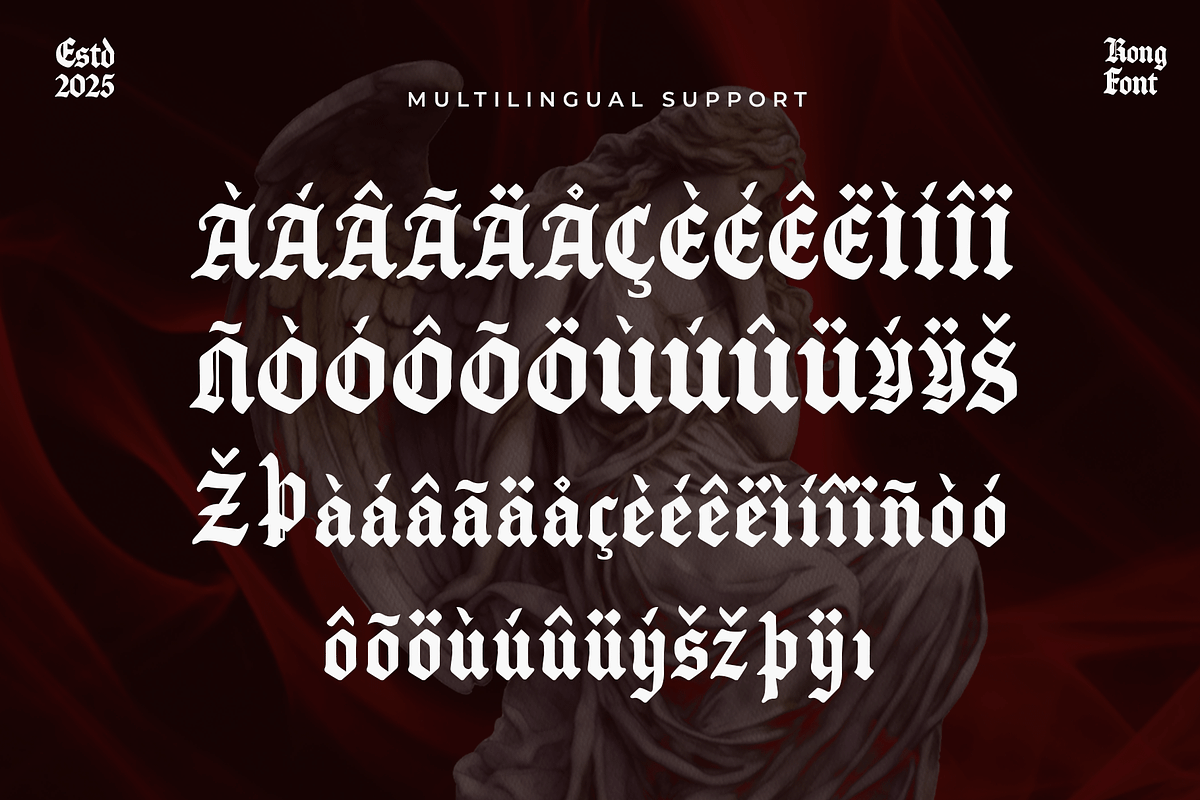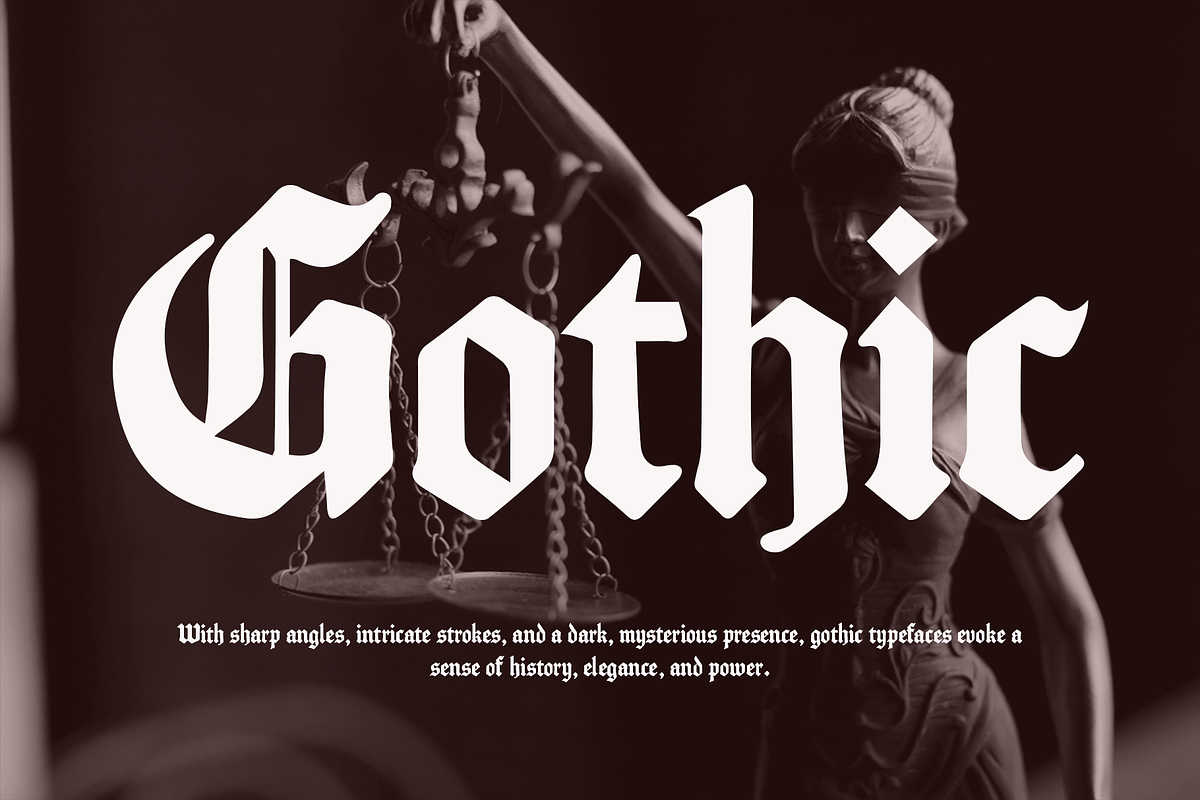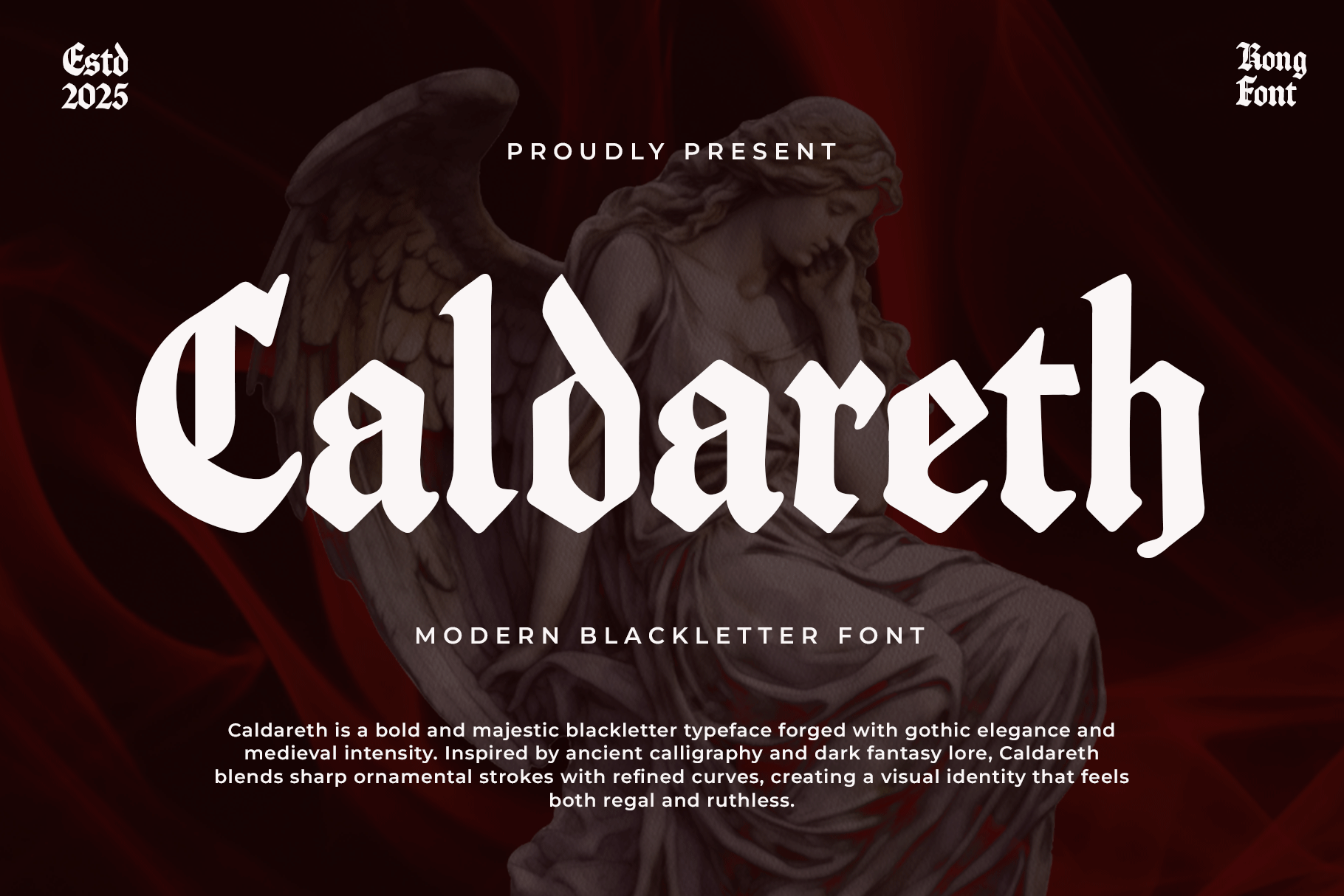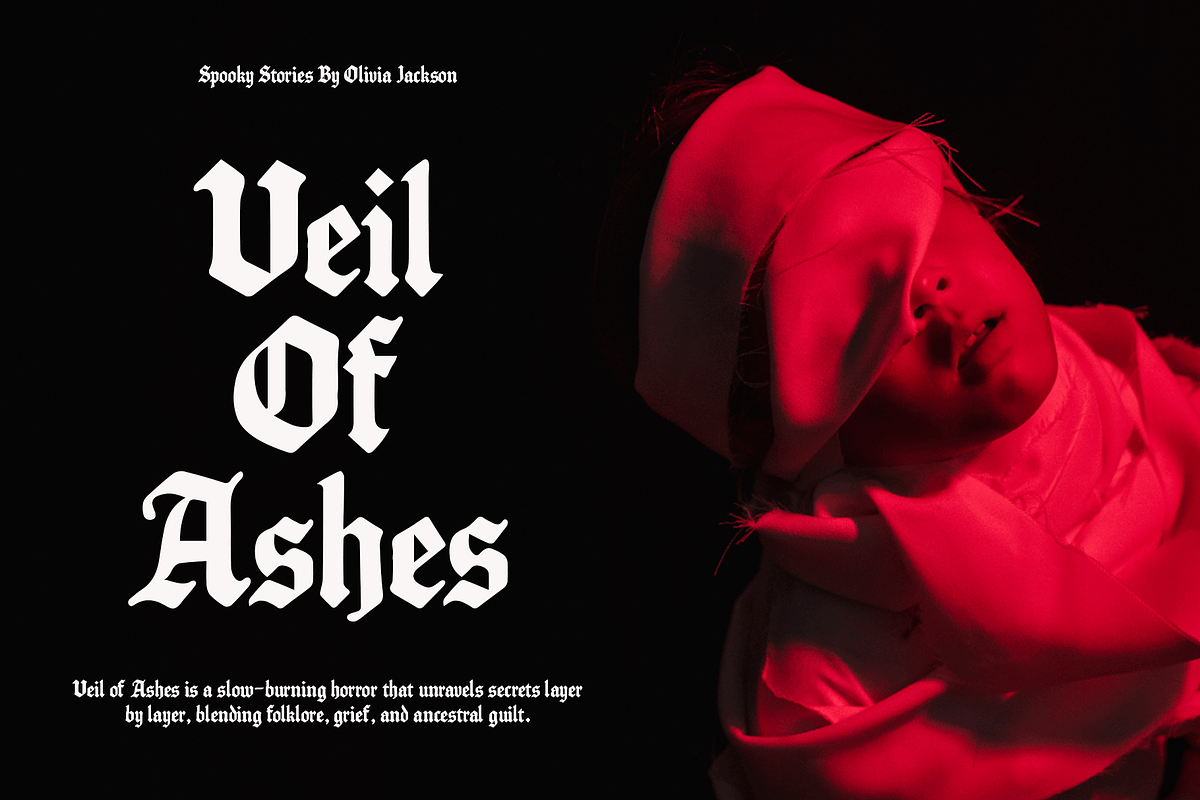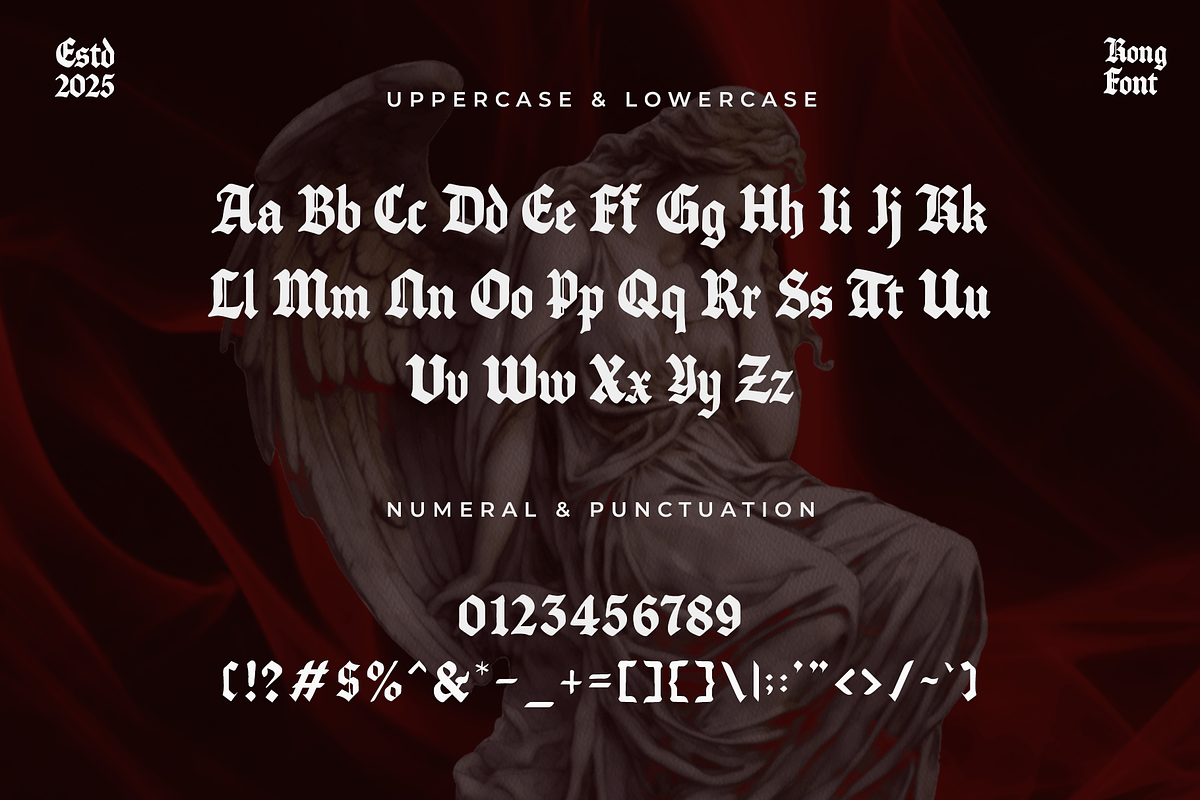
Caldareth - Modern Blackletter Font
Introducing "Caldareth," a modern blackletter font that fuses the dramatic elegance of Gothic script with a fresh, updated style. Its strong strokes, intricate details, and clean refinements make it the perfect choice for designers who want to honor tradition while embracing modern design sensibilities.
Caldareth excels in projects that demand impact and personality—whether it’s for branding, posters, packaging, apparel design, or album covers. Its sharp letterforms and striking presence create a sense of authority and artistry, while enhanced readability ensures it works beautifully both in print and digital formats.
Complete with uppercase, lowercase, numerals, punctuation, and multilingual support, Caldareth offers versatility without losing its bold blackletter soul. The result is a typeface that’s as expressive in small details as it is in grand statements.